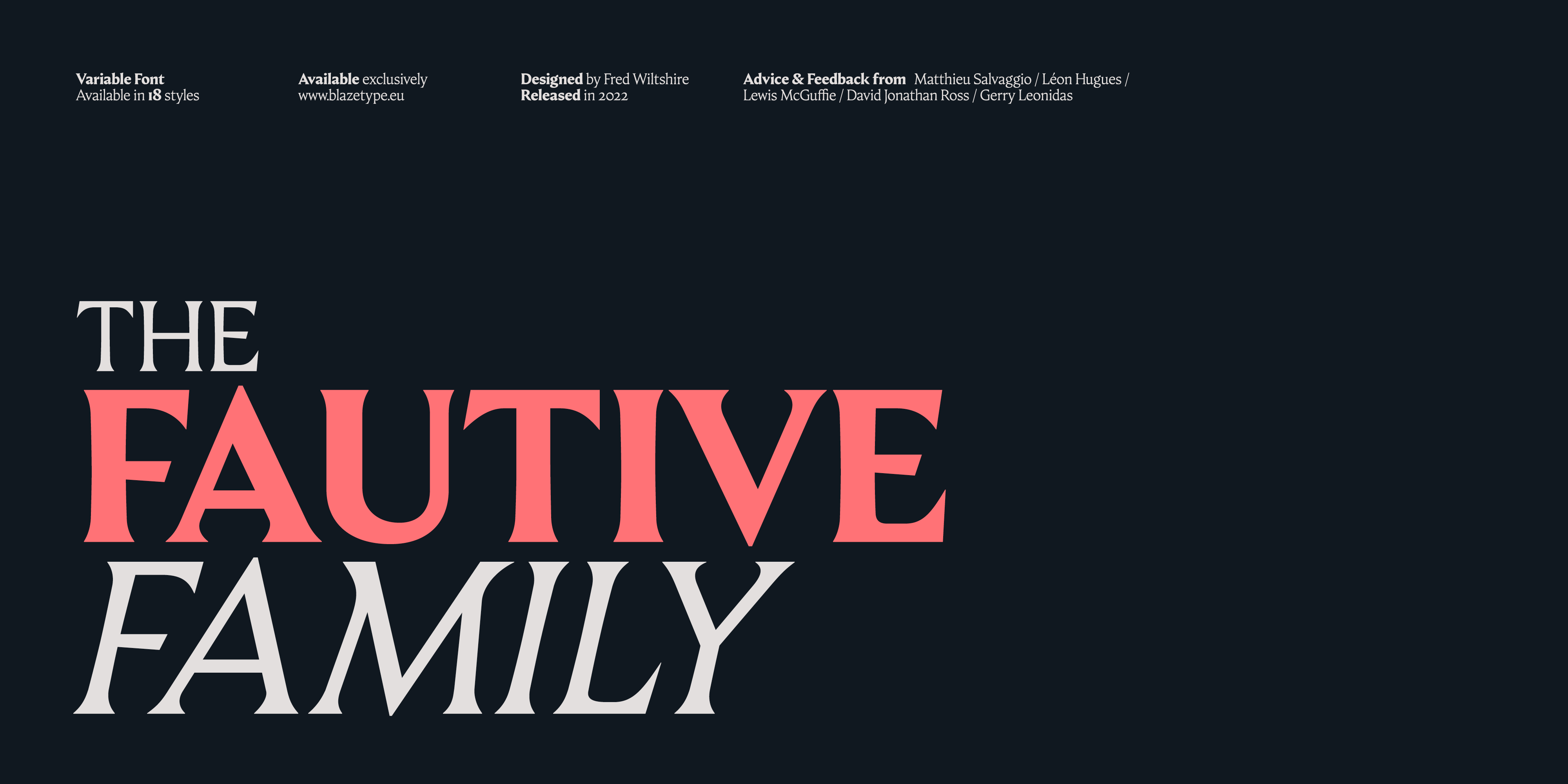
Fautive Font is perfect for rebellious streetwear brands, underground music albums, edgy art installations, alternative fashion magazines, countercultural publications, provocative advertising campaigns, radical political messaging, avant-garde theater posters, unconventional design studios, and disruptive startup branding.
What makes Fautive Font exciting is its bold defiance and unapologetic character that challenges conventional typography with fearless innovation and rebellious spirit. This daring typeface embodies the essence of creative rebellion with its unconventional letterforms and rule-breaking design philosophy that refuses to conform to traditional expectations. The font's faultive character creates an immediate impression of authenticity and courage that resonates with audiences seeking genuine alternatives to mainstream design.
Fautive Font family includes regular weight with deliberately unconventional character designs featuring intentional imperfections and anti-establishment proportions. The typeface maintains surprising readability while showcasing its distinctive rebellious personality through boldly crafted letterforms that celebrate creative mistakes and embrace typographic rule-breaking as artistic expression.
Creative rebels consistently choose Fautive Font Free Download for projects requiring authentic alternative appeal and countercultural credibility. This remarkable typeface brings the spirit of creative rebellion to brand communications, combining artistic defiance with purposeful messaging to create unforgettable experiences that challenge the status quo. The courageously designed characters ensure memorable impact across all applications, making it essential for independent brands, creative collectives, and any organization seeking to communicate the transformative power of embracing imperfection and celebrating the beautiful mistakes that lead to genuine innovation.